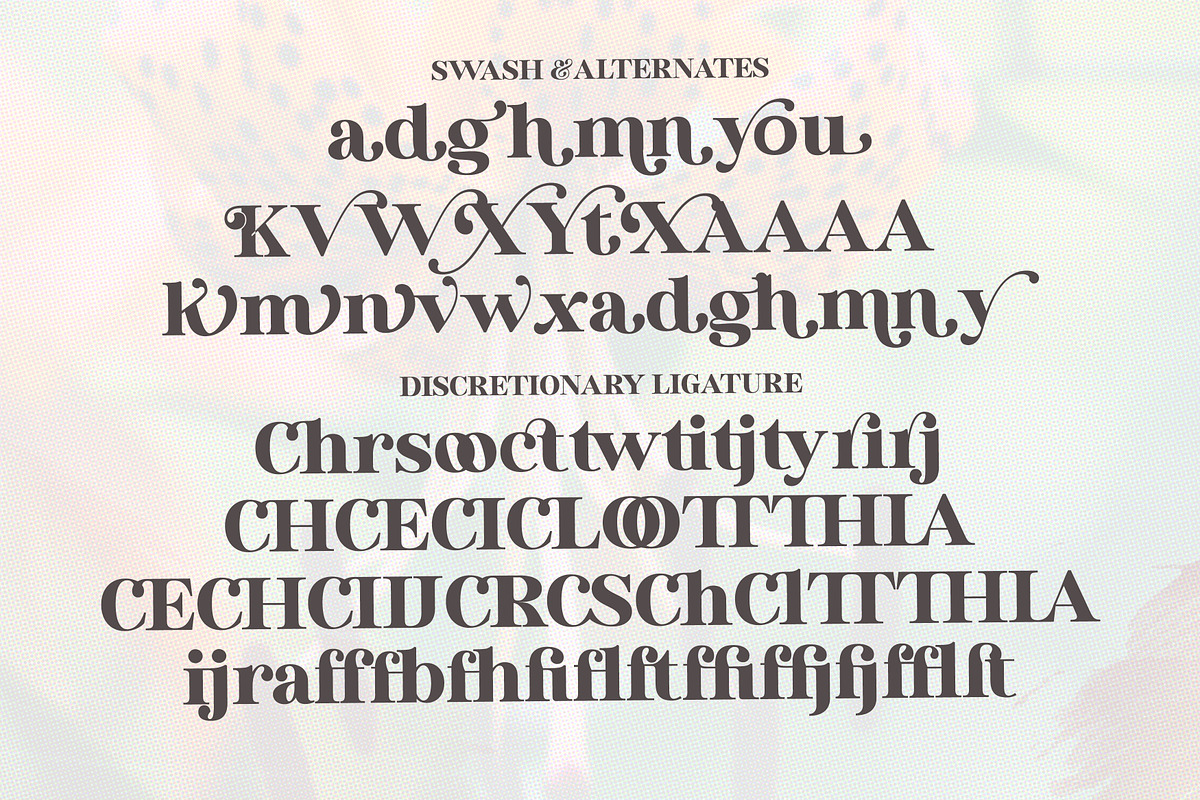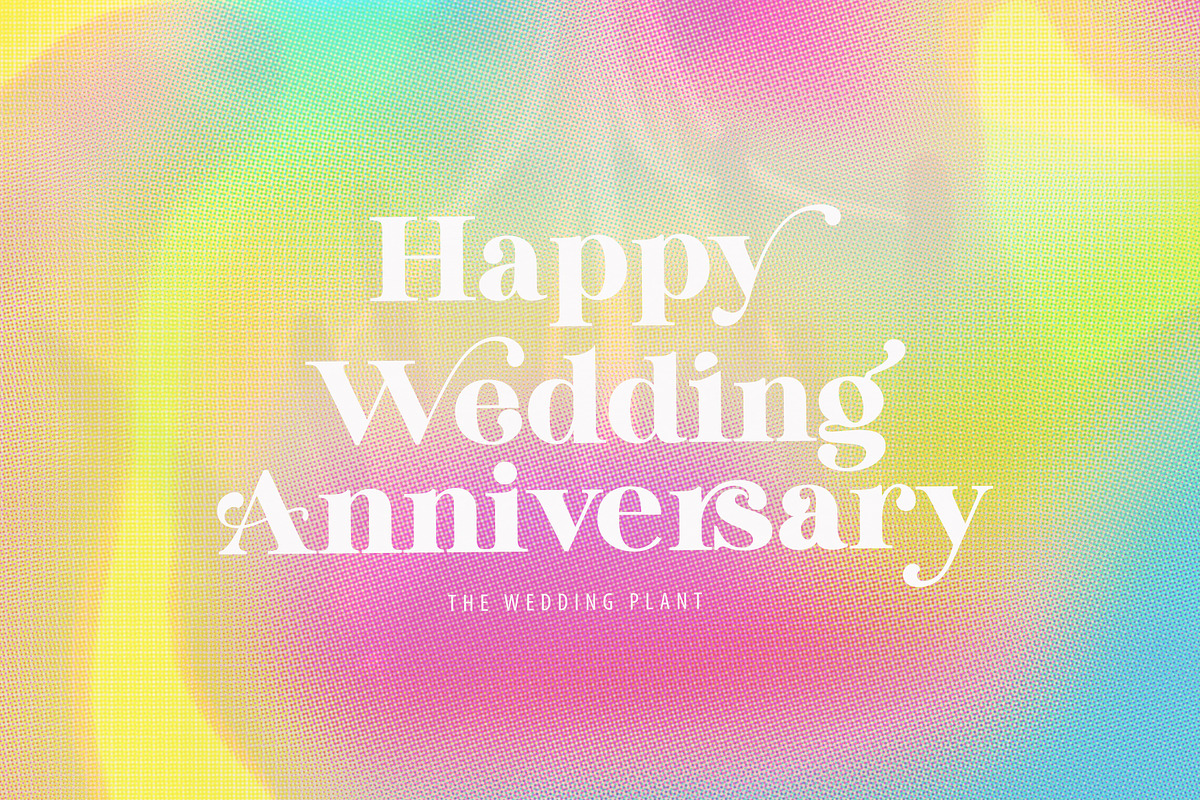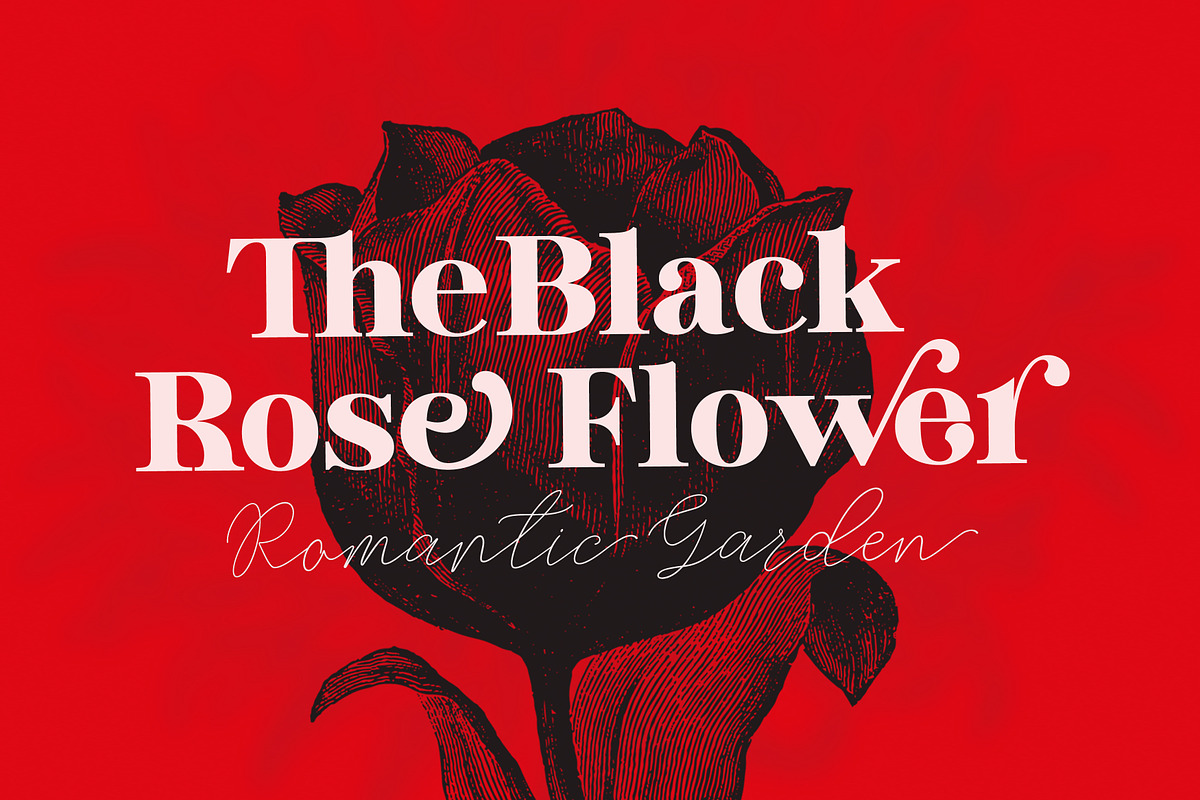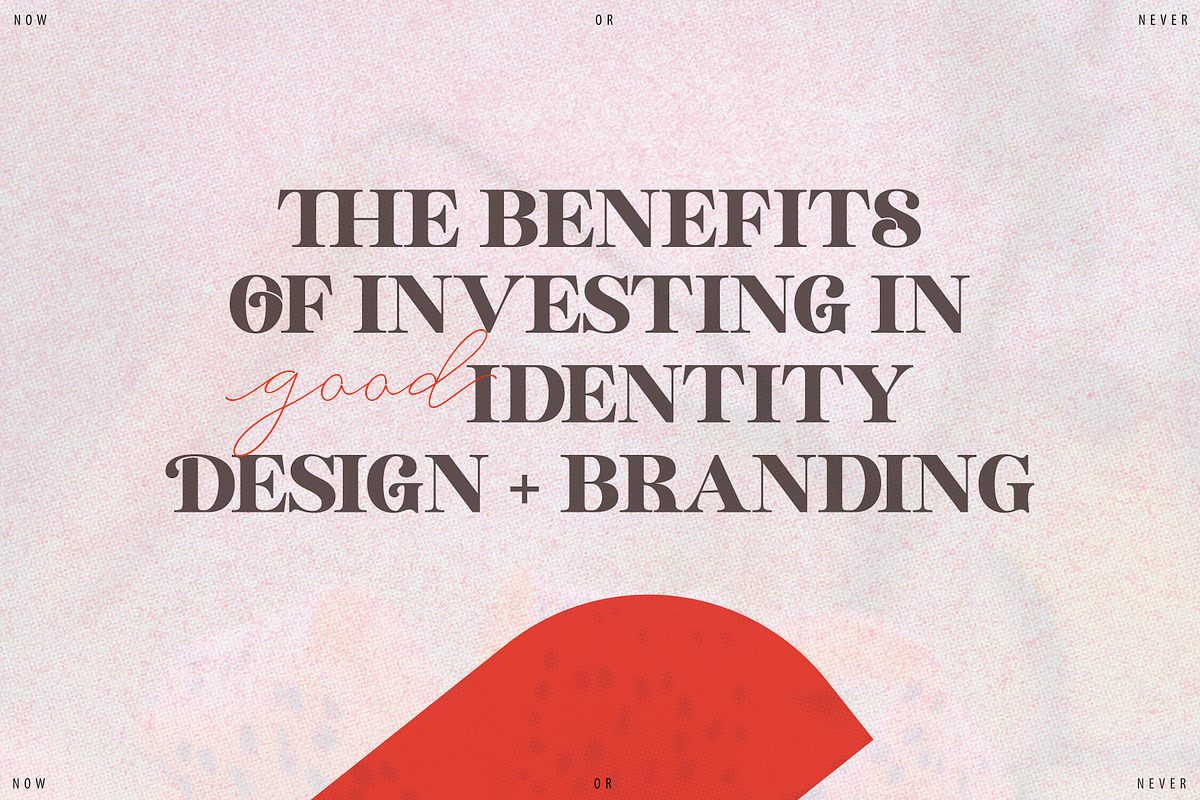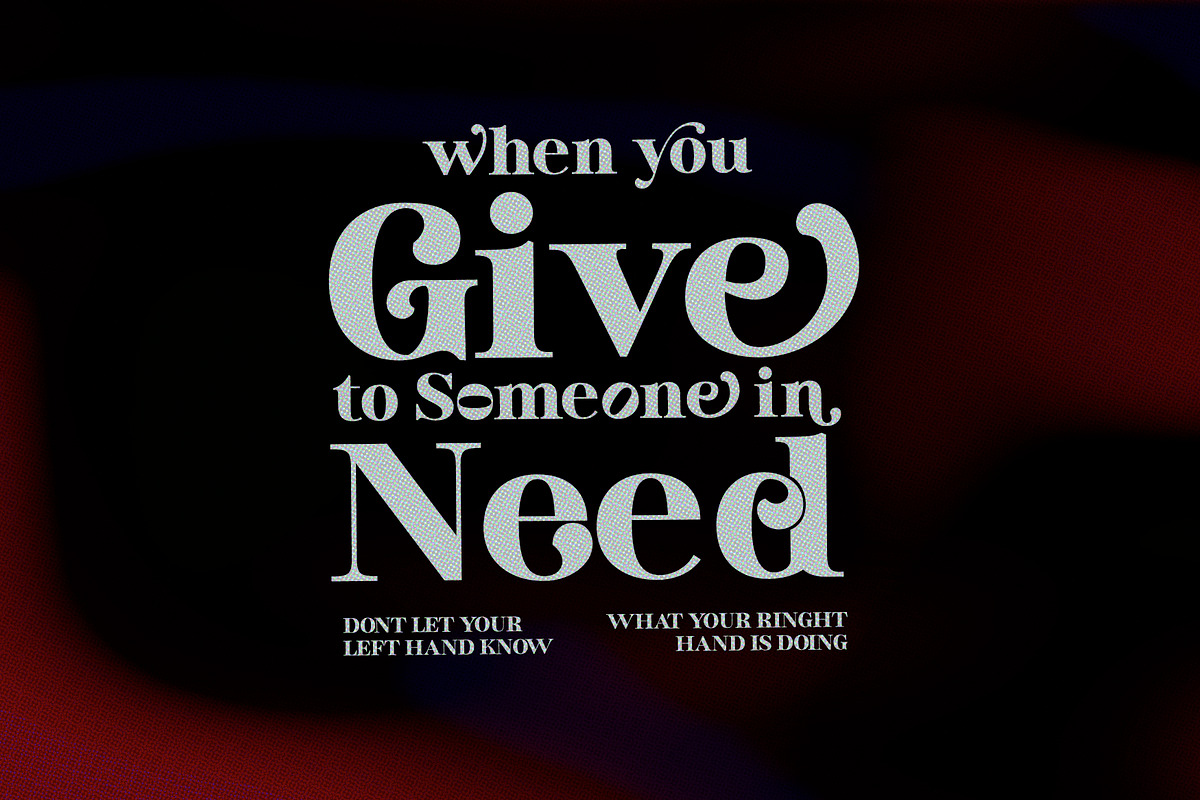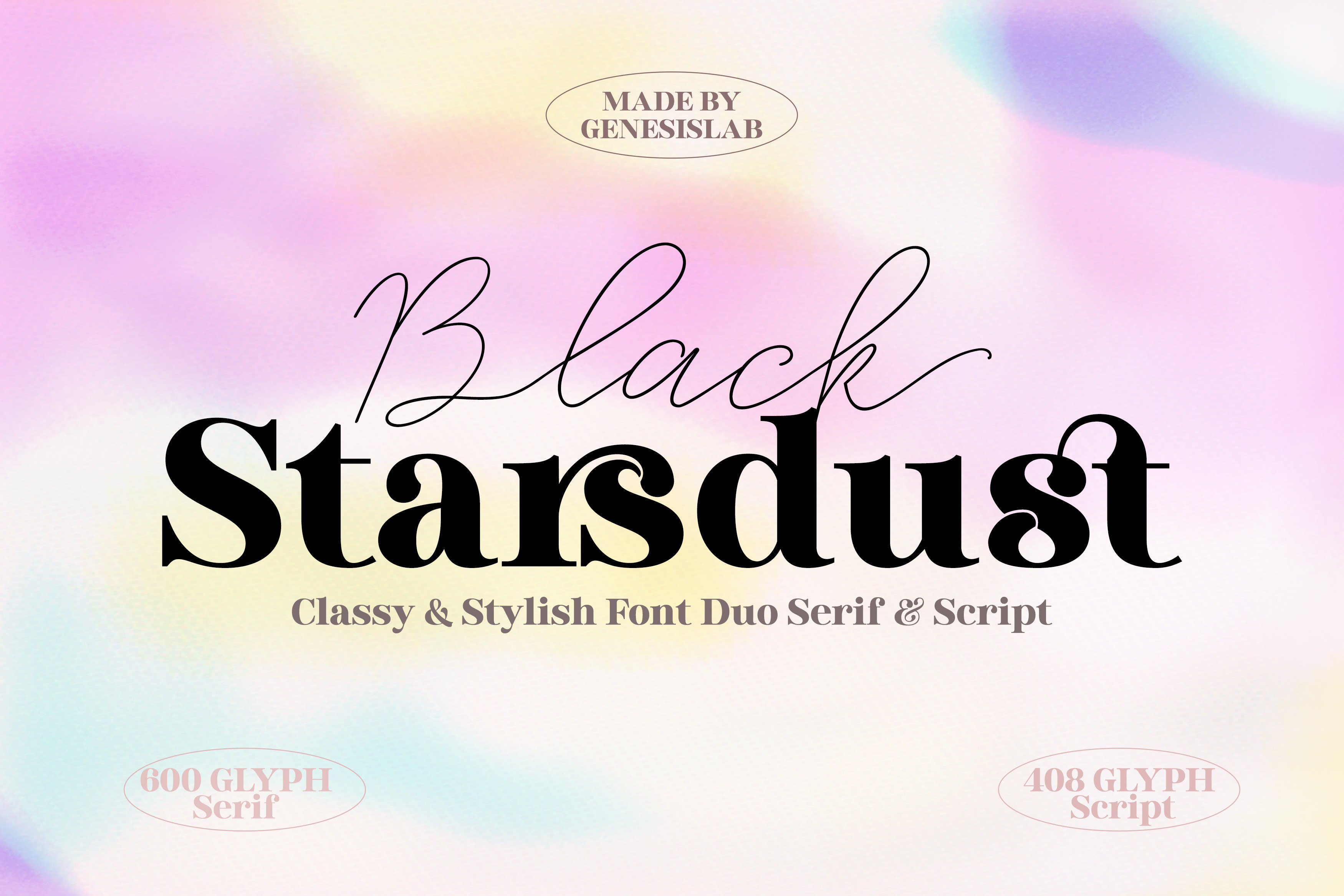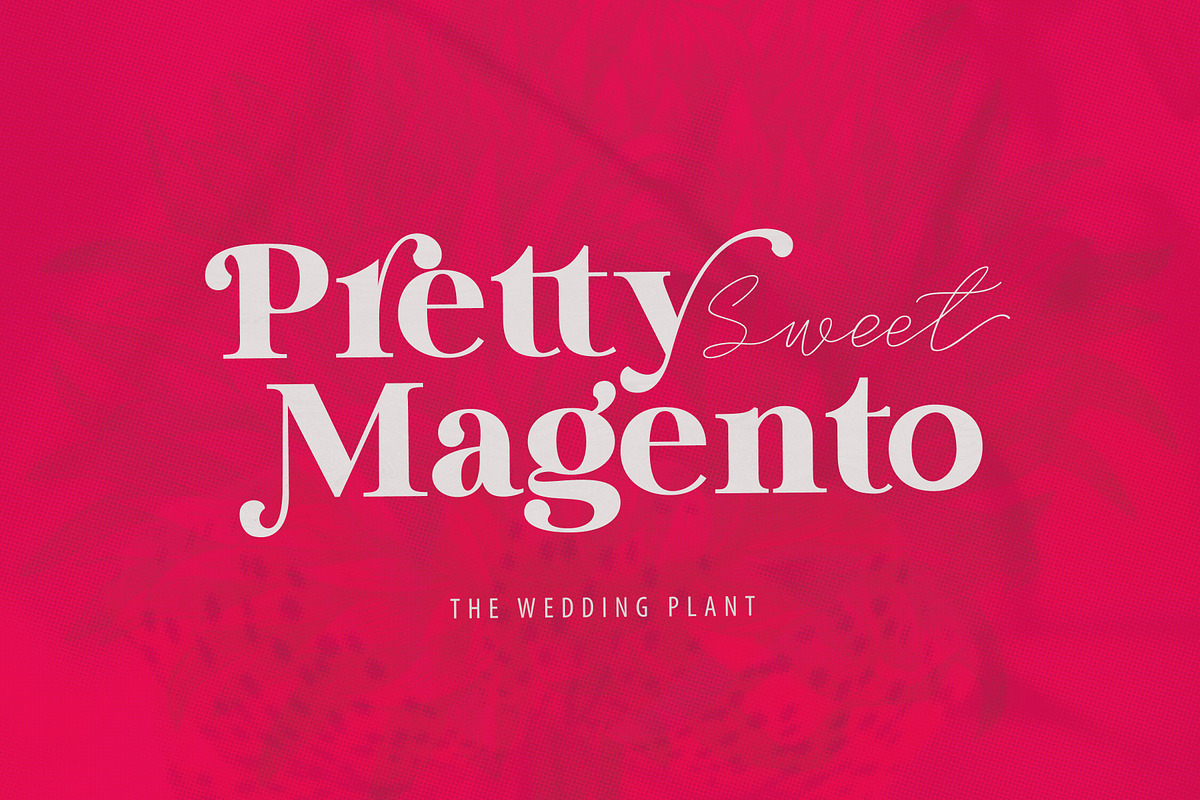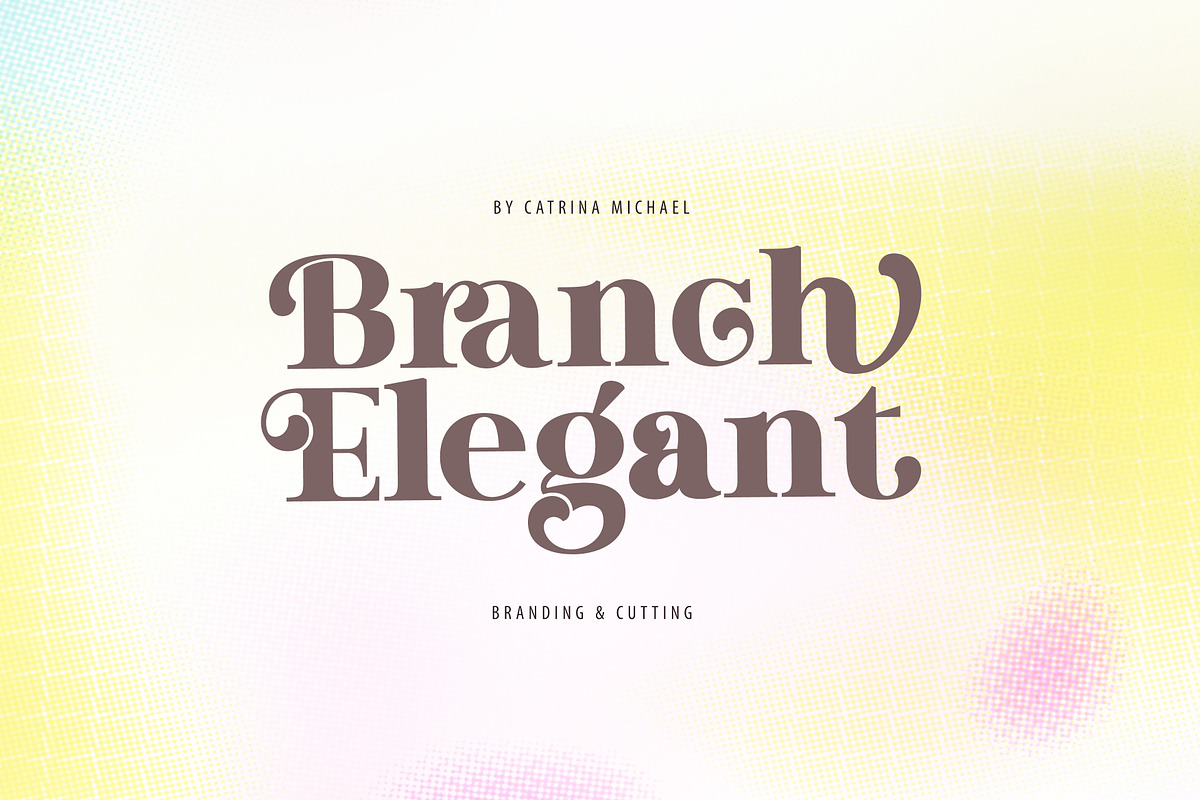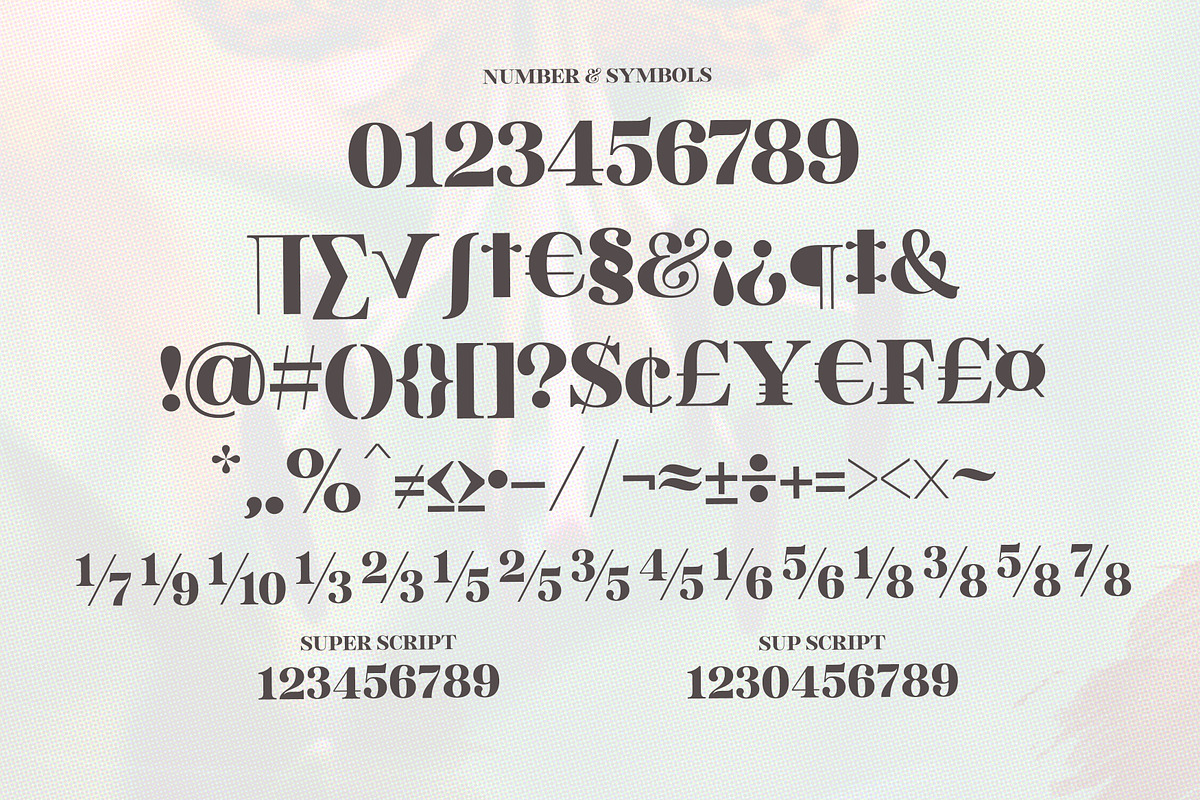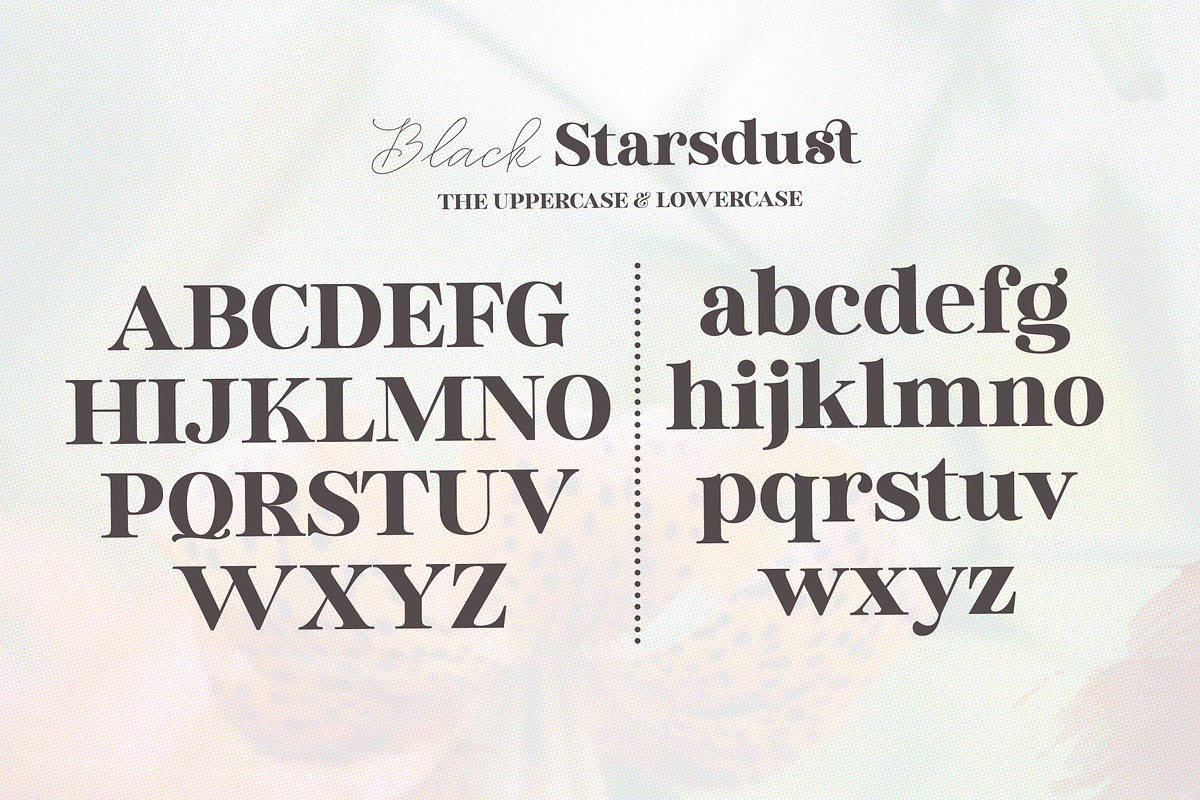
Black Starsdust (Font Duo)
Black Starsdut is a unique and modern combination serif typeface that is complemented by blend alternatives that give it a luxurious and unique style. This font is perfect for branding, logos, invitations, watermarks and more.
The Black Starsdut font comes in a duo font style, thin script, and bold. Full Font including Upper & lower case, Ligature, discretionary, numbers, soup script, super script punctuation, Alternative Swash & Multilingual Support.